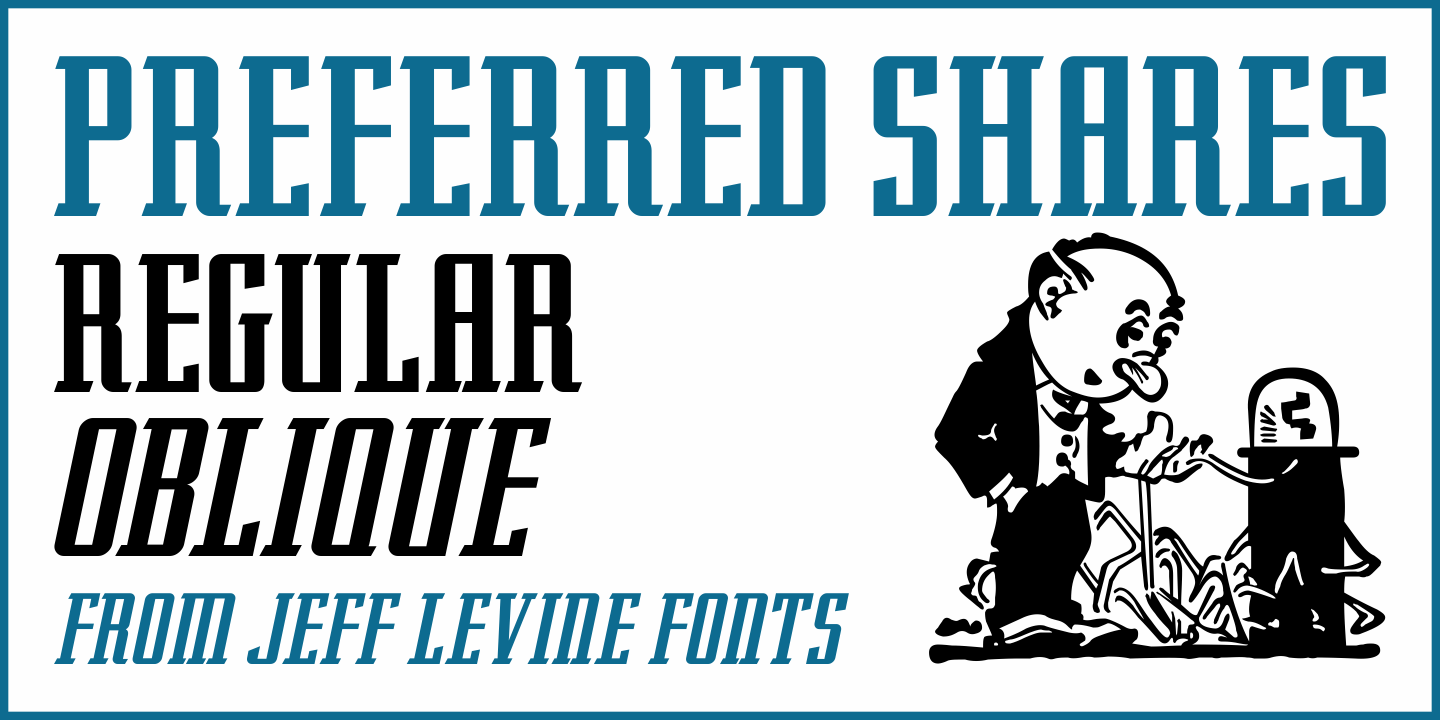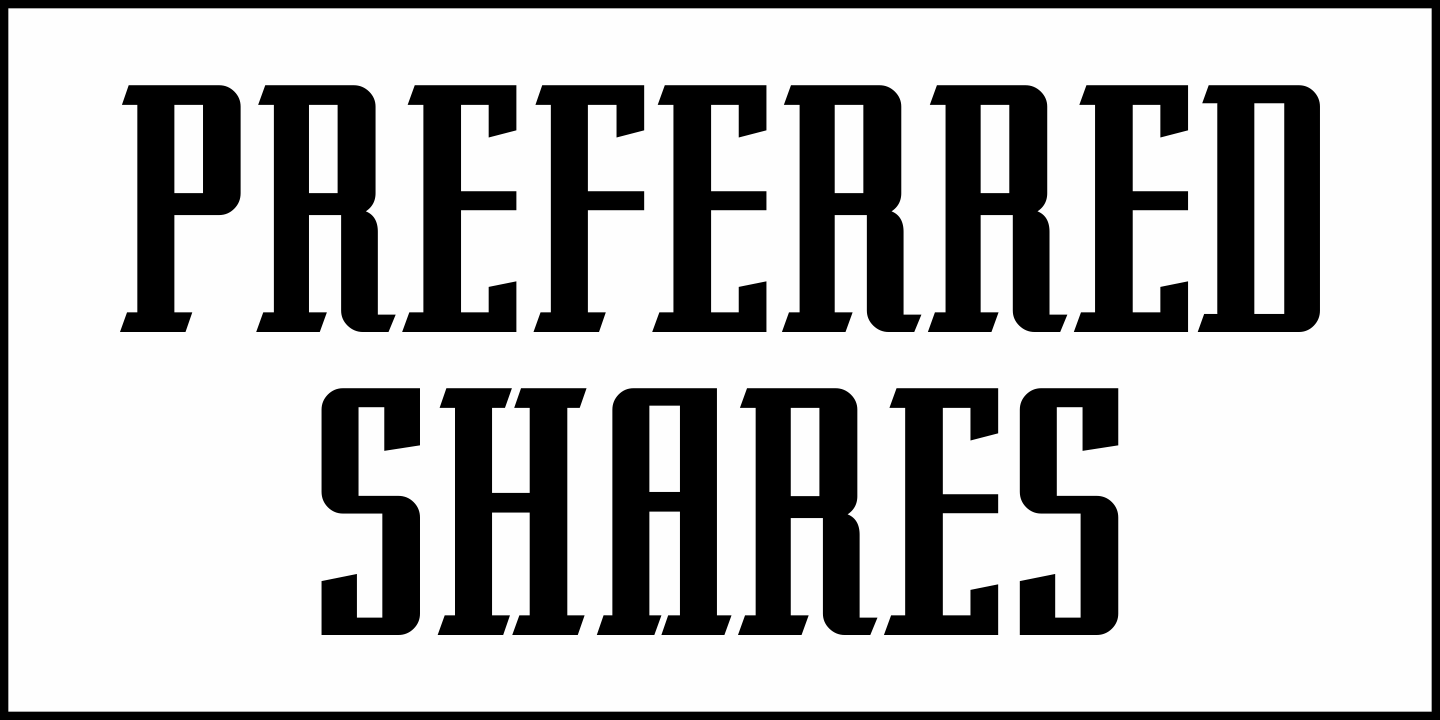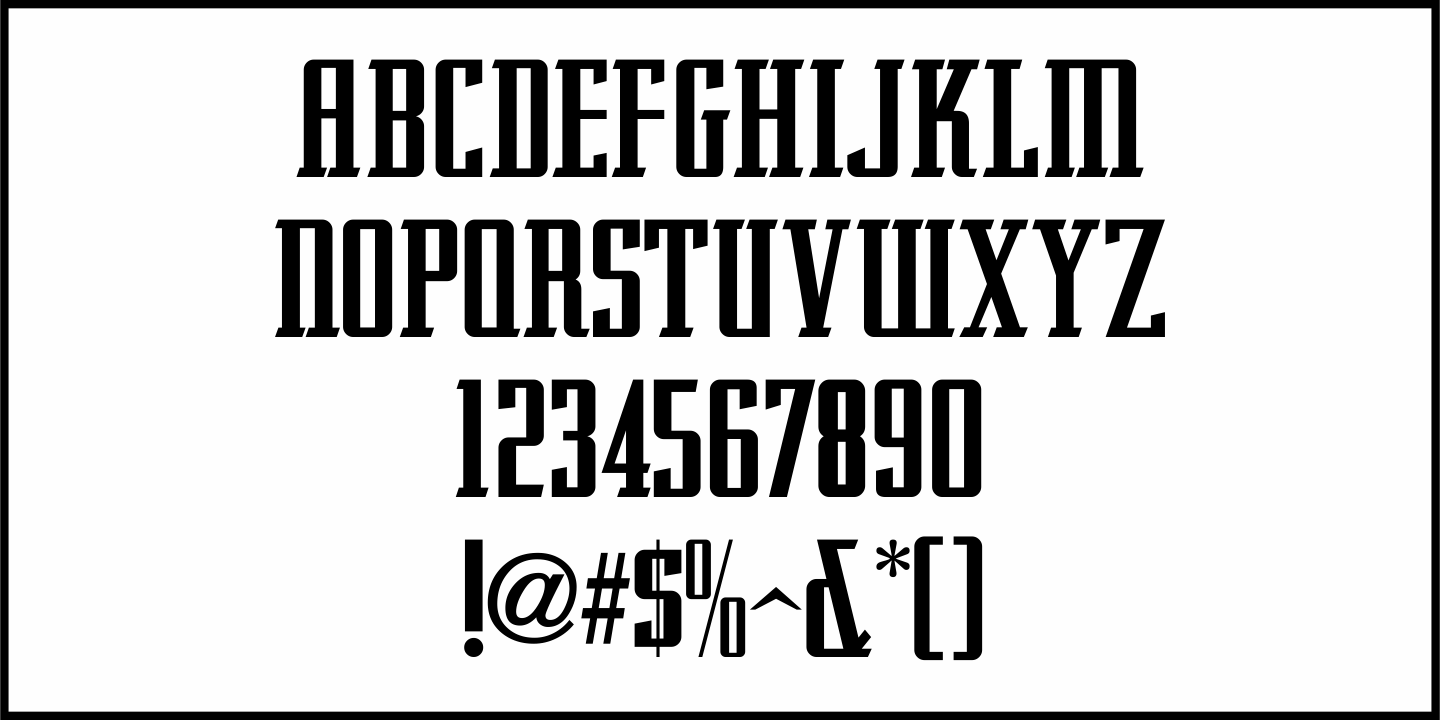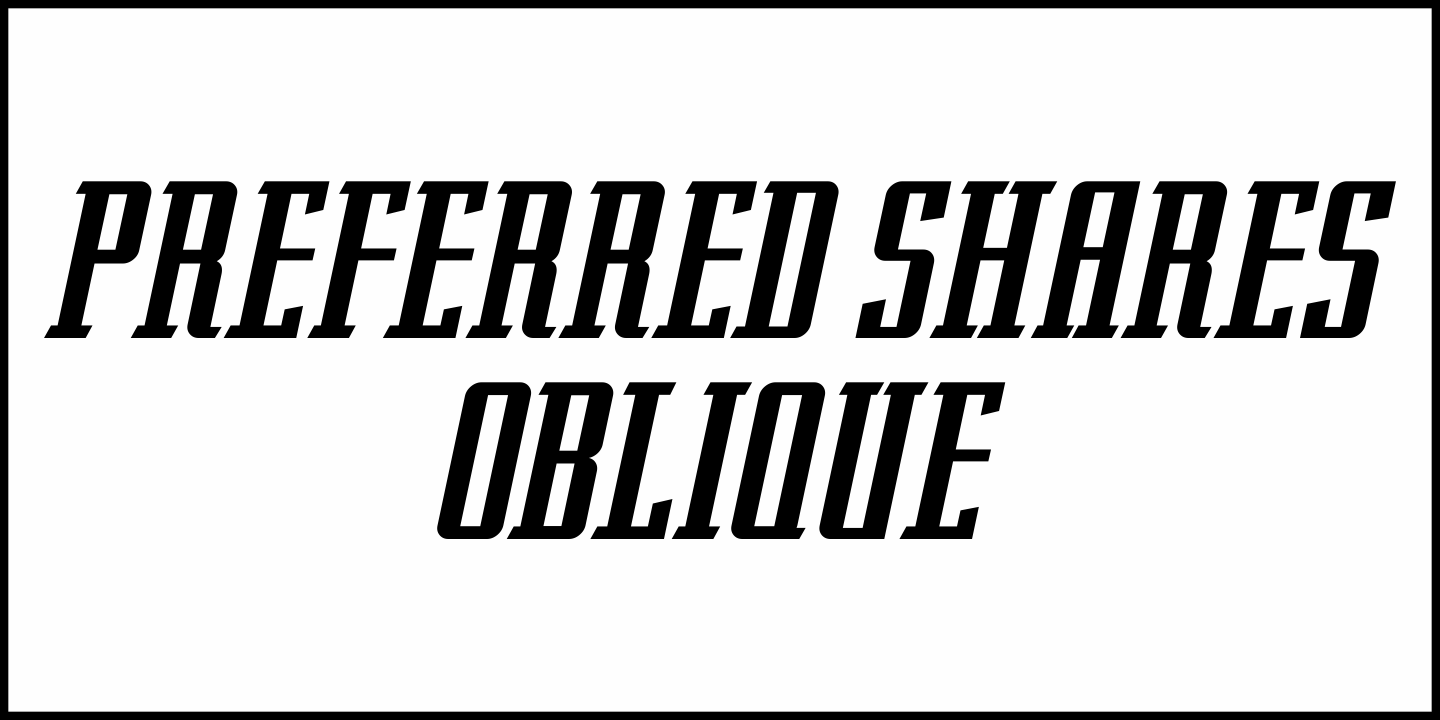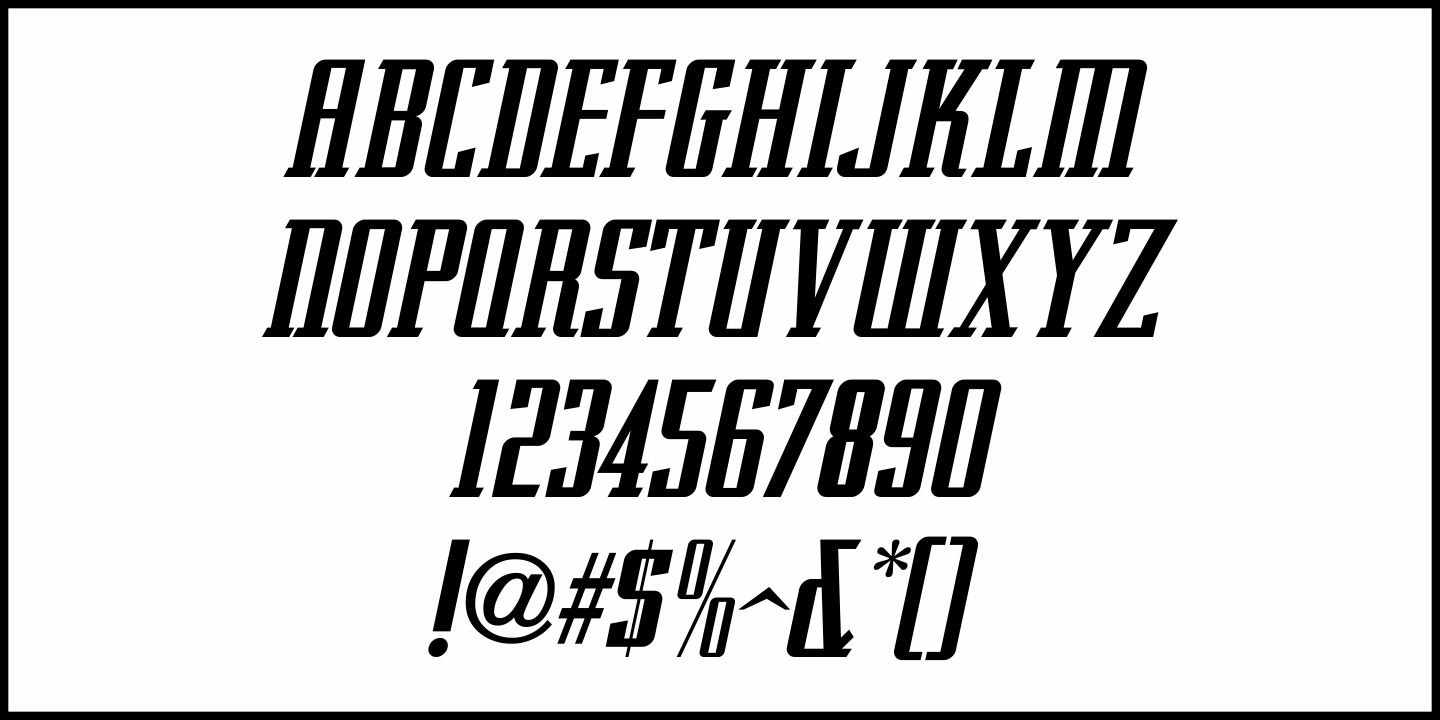
Preferred Shares
A July 9, 1935 trade paper ad for Paramount Pictures' 1st quarter film releases sported hand lettering with chamfered slab serifs.
This condensed type design is now available as Preferred Shares JNL in both regular and oblique versions.
Preferred Shares JNL Regular by Jeff Levine Fonts